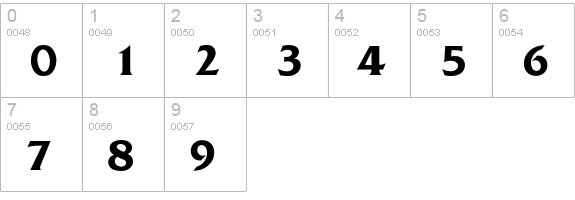
Quadrat-DemiBold is a sub-bold, structured variant in the Quadrat typeface family \xE2\x80\x94 well suited to sub-headlines and emphasised passages.
Quadrat-DemiBold is a stunning font that embodies elegance and sophistication. Its sleek and bold design captures attention and commands authority. This font is perfect for creating impactful headlines, logos, and branding materials. With its strong and distinct letterforms, Quadrat-DemiBold adds a touch of modernity to any design project. Its clean lines and balanced proportions make it versatile and suitable for a wide range of applications. Whether you're designing a website, a magazine layout, or a poster, this font will bring a touch of professionalism and style. What makes Quadrat-DemiBold even more remarkable is that it is freely available to download at FontsMarket.com. This means that you can access this exceptional font without any cost. It's a great opportunity to enhance your design toolkit without breaking the bank. Quadrat-DemiBold's versatility extends beyond its aesthetics. Its legibility ensures that your message is conveyed effectively, regardless of the medium. The font's clear and crisp characters make it easy to read, even at small sizes or from a distance. In addition, Quadrat-DemiBold offers a wide range of international characters and symbols, making it suitable for multilingual projects. Its extensive character set ensures that you can express your creativity without limitations. Whether you're a professional designer or an aspiring creative, Quadrat-DemiBold is a font that will elevate your work to new heights. Its combination of elegance, versatility, and availability make it an invaluable addition to any typographic collection. Download Quadrat-DemiBold for free at FontsMarket.com and let your designs speak volumes with this exceptional font.